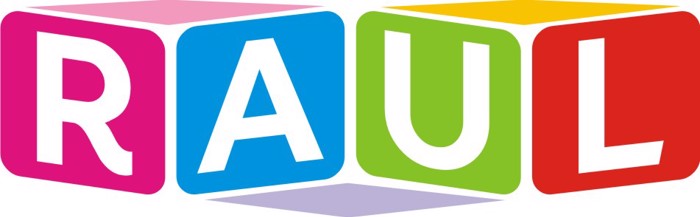
square kids Font
It is a font created to give the illusion that it is a dice didactic, for a logo for a nursery
Esta fuente fue creada para dar la ilusión de ser un dado didactico, para un logo de una guardería
tambien puedes escribir asi S+qu-AR+e k-Id-S
You can also write so qu-S + AR + e k-Id-S